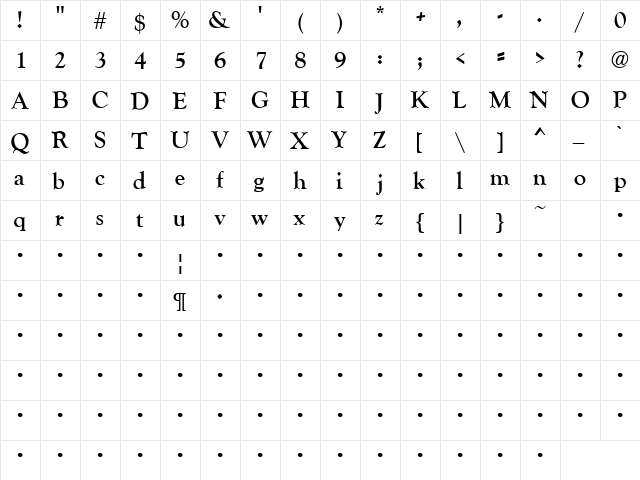
QTOldGoudy Bold
Design Context for QTOldGoudy Typeface
QTOldGoudy offers clean, dependable letterforms without strong stylistic allegiance, making it a practical choice for designers who need flexibility. The heavy weight commands attention and anchors typographic hierarchies.